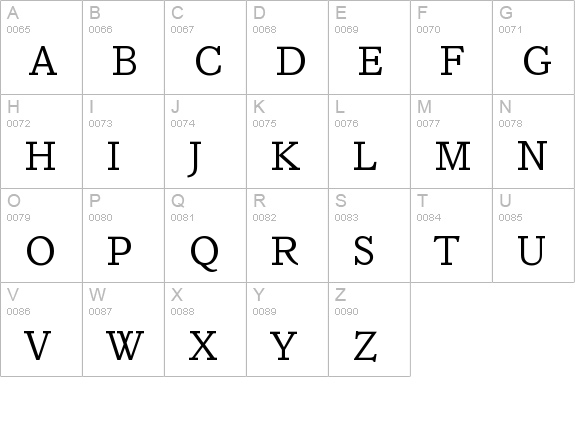
GranadaSerial-Light-Regular is a refined, elegant variant in the GranadaSerial typeface family \xE2\x80\x94 well suited to elegant body text, refined sub-headings, and luxury branding.
GranadaSerial-Light-Regular is a modern and elegant font that exudes sophistication and style. With its clean lines and balanced proportions, this typeface is perfect for a wide range of design projects, from branding to editorial layouts. The light weight of the font gives it a delicate and refined appearance, making it ideal for conveying a sense of elegance and professionalism. The best part? GranadaSerial-Light-Regular is available for free download at FontsMarket.com. This means that you can easily access and use this beautiful font in your projects without having to worry about any additional costs. Whether you're designing a logo, creating a website, or working on a print publication, GranadaSerial-Light-Regular is a versatile and stylish font choice that will elevate your designs to the next level. Download it today and enhance your creative projects with this stunning typeface.